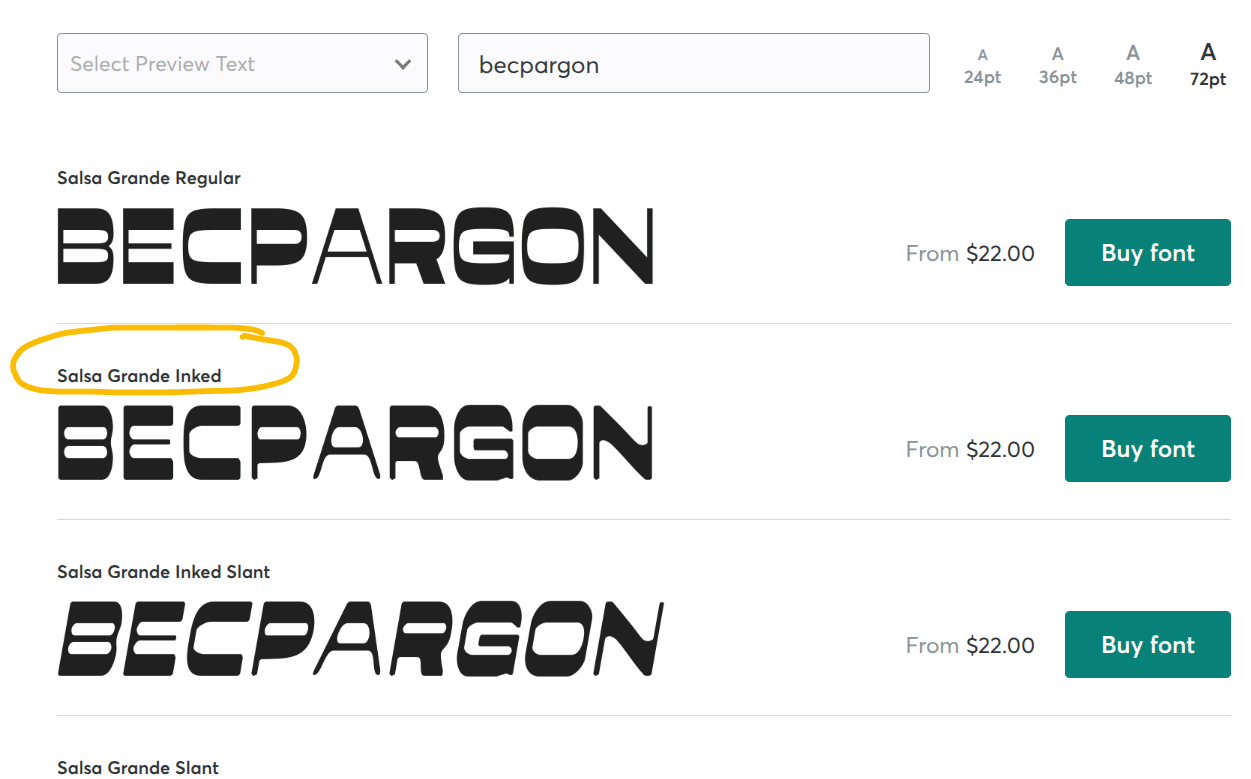
Any ideas on this font? It’s close to Cowboy Hippie. Thanks in advance.
You’re definitely right, it’s very close to Cowboy Hippie but just slightly off. It looks incredibly similar to Sintex (specifically the bold or black weight). The way the ‘A’, ‘R’, and ‘C’ curve match perfectly to the sign in the photo. If it’s not an exact match, it might be a customized version of it, but Sintex is definitely the closest alternative to Cowboy Hippie for this specific retro look.